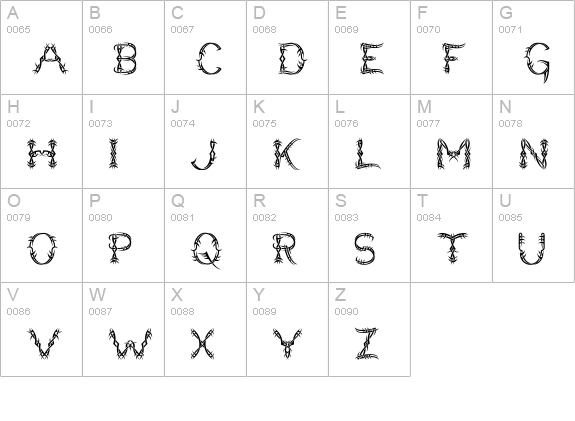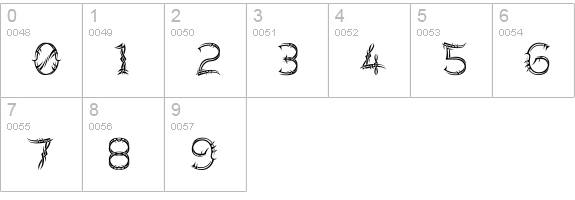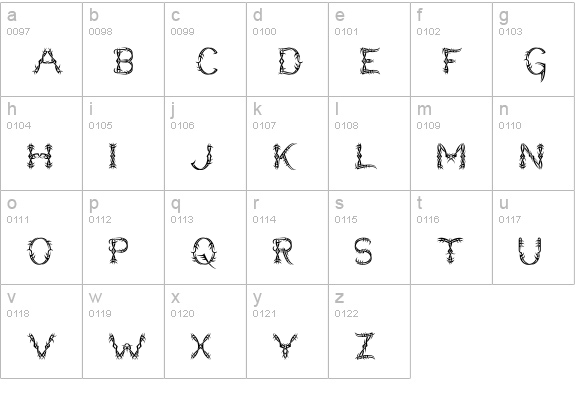
Lupus Blight Font Details
Lupus Blight font is a unique and striking typeface that captures attention with its bold and edgy design. The sharp angles and intricate details of this font give it a mysterious and alluring quality, making it perfect for projects that require a touch of drama and intrigue. The Lupus Blight font is versatile and can be used for a wide range of design applications, from posters and branding to social media graphics and packaging. What sets Lupus Blight font apart is not only its striking appearance but also the fact that it is freely available for download at FontsMarket.com. This means that designers and creatives can easily access this captivating font without any cost, allowing them to bring their creative visions to life without any limitations. With Lupus Blight font, you can add a touch of sophistication and artistry to your projects, making them stand out from the crowd. Download Lupus Blight font today and let your creativity soar!